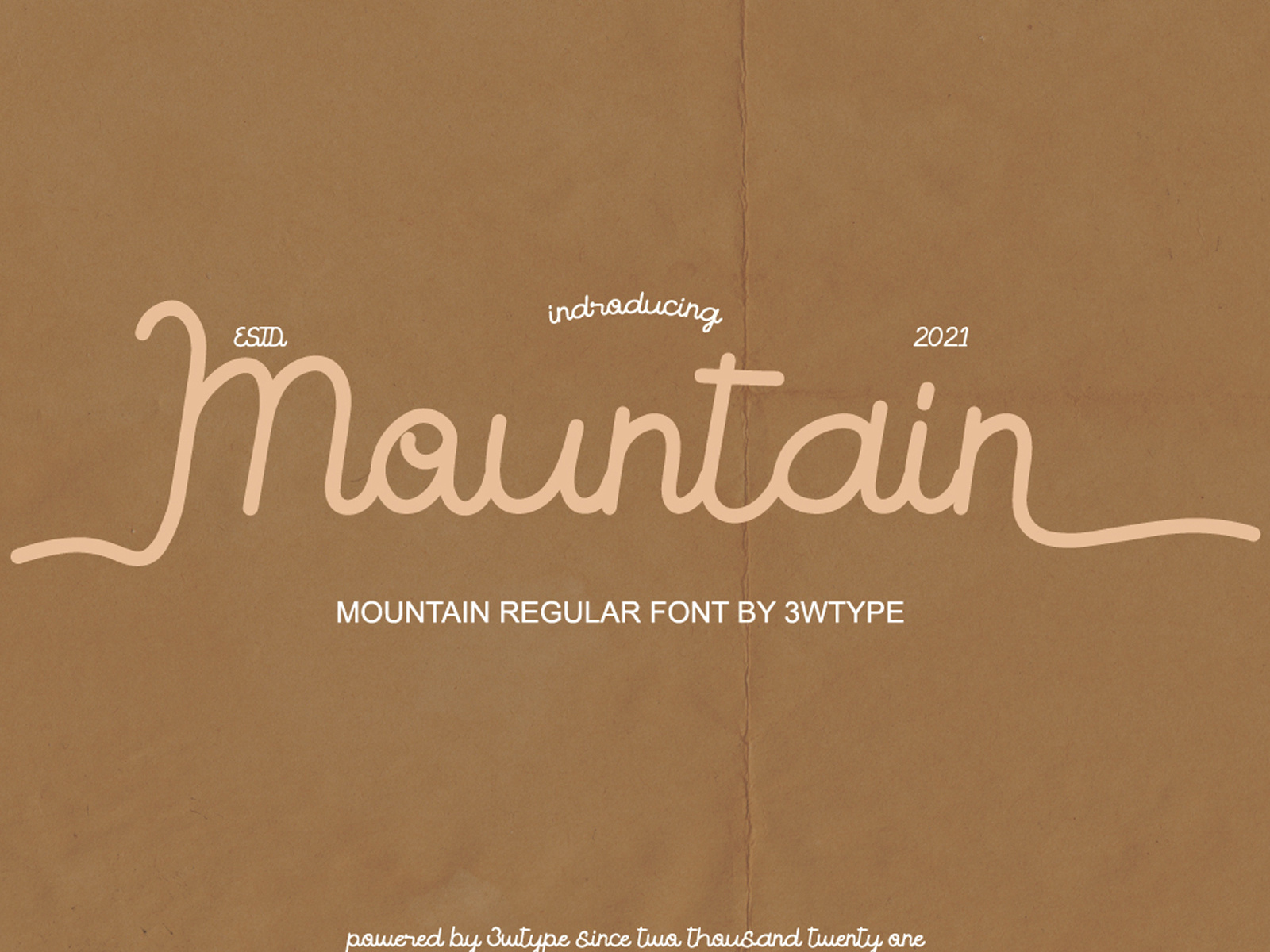
Mountain | FREE FONT
Introducing the Mountain font Regular vintage style that we made specifically for branding needs, with the addition of handwriting and an attractive style that will make your brand look even cooler. excellent for designers who need a font with a classic and elegant style.